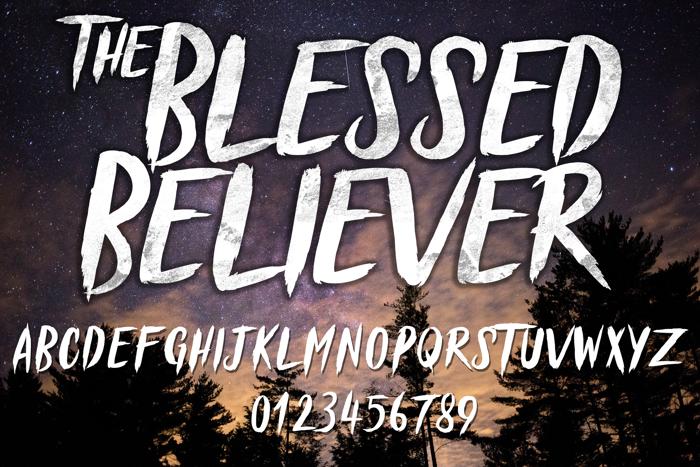
Blessed Believer Font
BLESSED BELIEVER
- Clean brush inspired font perfect on your school projects, covers, etc.
- Lifestyle modern theme font for branding, website, mobile app etc.